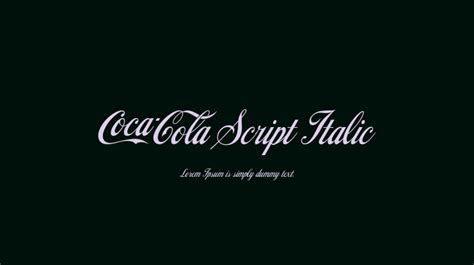
Unveiling The Iconic Coca-Cola Script Italic Font: A Deep Dive
Hey guys! Ever stopped to admire the elegant swirl of the Coca-Cola script italic font ? It’s more than just letters; it’s a globally recognized symbol, a work of art, and a testament to the power of branding. Let’s dive deep into the fascinating world of this iconic font, exploring its history, design, and lasting impact. This isn’t just about typography; it’s about the cultural significance of one of the world’s most beloved brands. So, grab a Coke (or your beverage of choice), and let’s get started!
The Genesis of a Legend: History and Evolution
The story of the Coca-Cola script italic font begins way back in 1886. It all started with Frank Mason Robinson, the bookkeeper for John Pemberton, the pharmacist who concocted the original Coca-Cola formula. Robinson wasn’t just good with numbers; he had a knack for calligraphy and a keen eye for design. He saw the potential for a unique and memorable logo that would help Coca-Cola stand out from the crowd. He realized the need to create a font that was more than just a font; it was a distinctive style to represent the brand. And he did just that! The font he created, in elegant Spencerian script, remains largely unchanged to this day. Isn’t that wild?
This original script was penned with a flourish and a grace that captured the essence of the drink itself. The flowing lines and elegant curves were a stark contrast to the more rigid and formal fonts of the time. The choice of the Spencerian script was brilliant, as it conveyed a sense of sophistication, tradition, and timelessness. It was a perfect match for the product. Over the years, the font has undergone minor tweaks and refinements, but its core essence has remained intact. The Coca-Cola script, sometimes referred to as the Coca-Cola Spencerian script, is not just a font; it is an enduring symbol of a brand that has transcended generations. The fact that the font has maintained its appeal for so long is a testament to the power of a well-designed logo and a carefully crafted brand identity.
Early Days and Adaptations
In the early days, the Coca-Cola script italic font was primarily used on print advertisements, packaging, and point-of-sale materials. Robinson’s design was initially simple and elegant, making it easy to replicate and adapt across various formats. The company’s focus was on consistency. The emphasis was on a consistent brand image across all communications. As Coca-Cola expanded its reach globally, the font became a familiar sight in countless languages and cultures. Adaptations were made to accommodate different writing systems. However, the core design remained consistent, ensuring that the brand identity remained unmistakable. It showed the success of a powerful brand.
The Script’s Enduring Legacy
The enduring legacy of the Coca-Cola script italic font lies in its ability to evoke a sense of nostalgia, quality, and familiarity. It is a font that has become synonymous with the brand itself. It’s instantly recognizable to people of all ages and backgrounds. It speaks volumes about the brand’s history, its values, and its global presence. The Coca-Cola script is more than just a logo; it’s a cultural icon, and its importance is hard to overstate. It’s an example of how a well-designed font can become an integral part of a brand’s identity and a symbol of its enduring success.
Unpacking the Design: Characteristics and Features
Alright, let’s get into the nitty-gritty of the Coca-Cola script italic font and break down what makes it so special. This isn’t just a random collection of letters; every curve, every swirl, and every angle has been carefully considered to create a harmonious and visually appealing design. The font is an art form.
Calligraphic Influence
At its core, the Coca-Cola script is deeply rooted in calligraphy. The flowing lines and graceful curves are a direct result of the Spencerian script style, which was highly popular during the late 19th century. The calligraphy influence gives the font its organic and humanistic feel, setting it apart from more geometric or mechanical fonts. The use of a hand-drawn style gives a sense of authenticity and craftsmanship. It also adds a layer of warmth and approachability to the brand’s image. This is a crucial element in creating a sense of connection with consumers.
Italic Slant and Fluidity
The italic slant of the Coca-Cola script italic font is another key characteristic. The gentle slant gives the font a sense of movement and dynamism. It’s almost as if the letters are dancing across the page. This fluidity contributes to the overall feeling of elegance and sophistication. It also helps to create a sense of visual harmony and balance. The italic slant also hints at the beverage itself: something refreshing and invigorating. The careful use of the italic style is one of the reasons the logo has managed to remain visually appealing for more than a century.
Unique Letterforms
Each letter in the Coca-Cola script is carefully crafted, but several letterforms stand out for their uniqueness. The uppercase